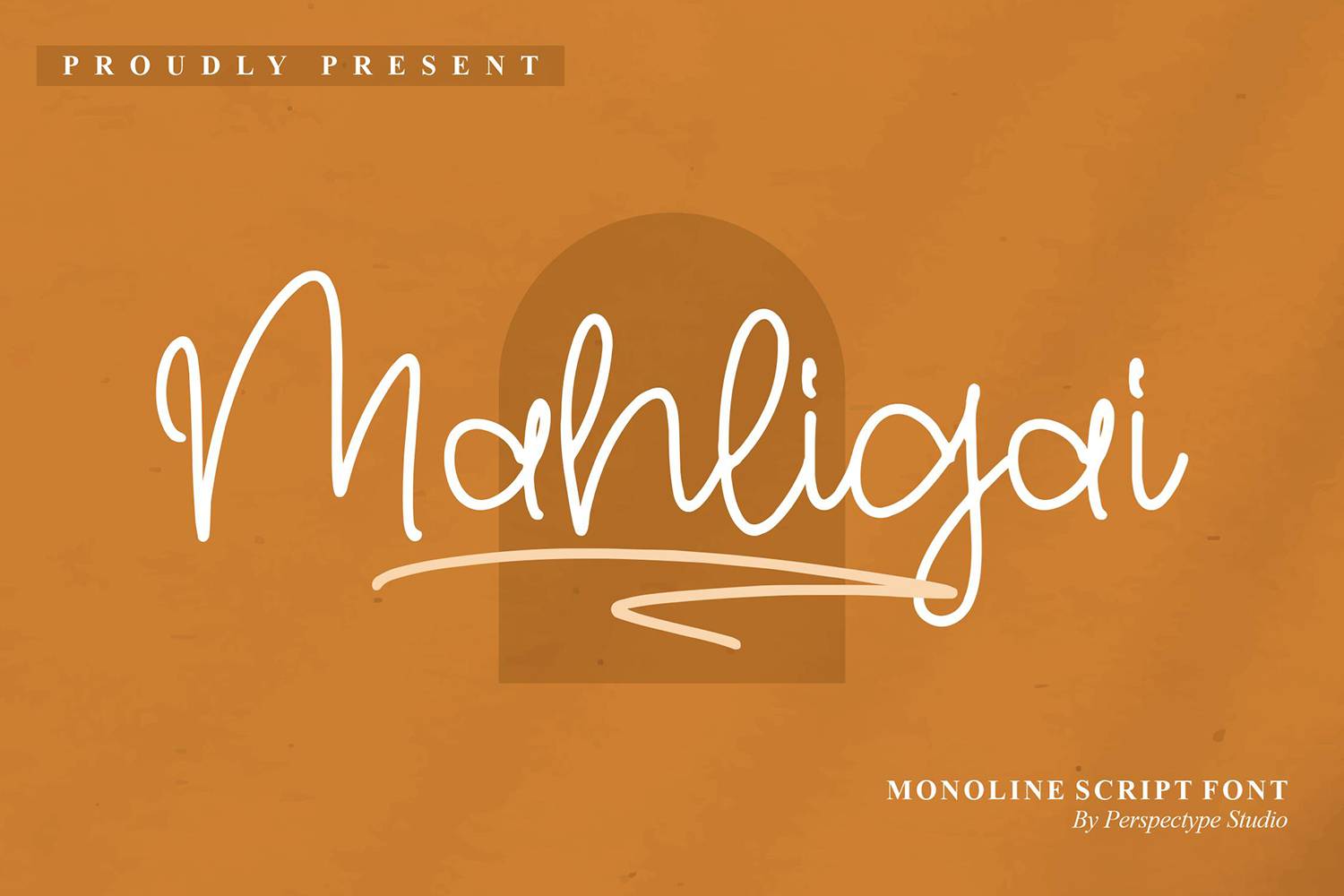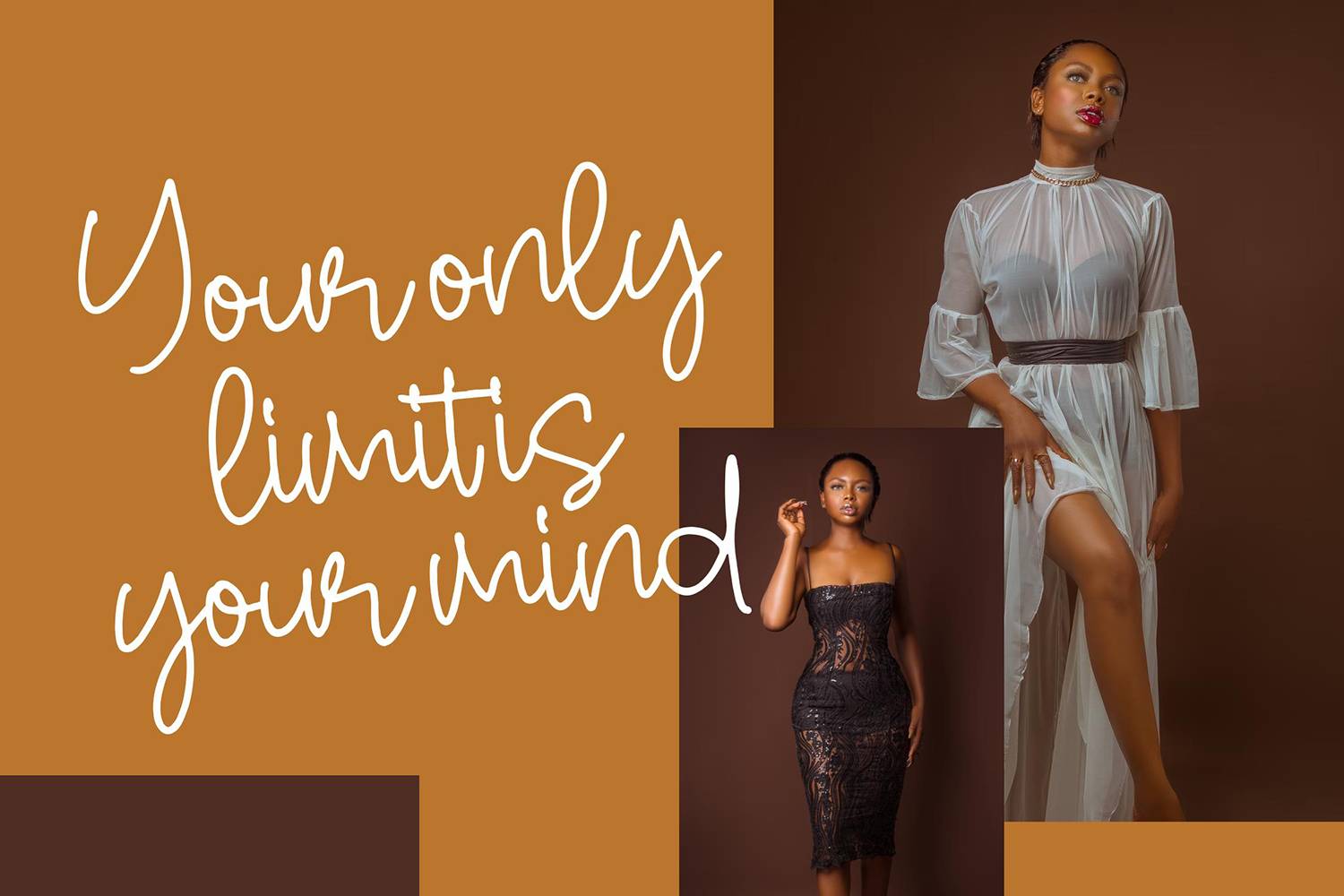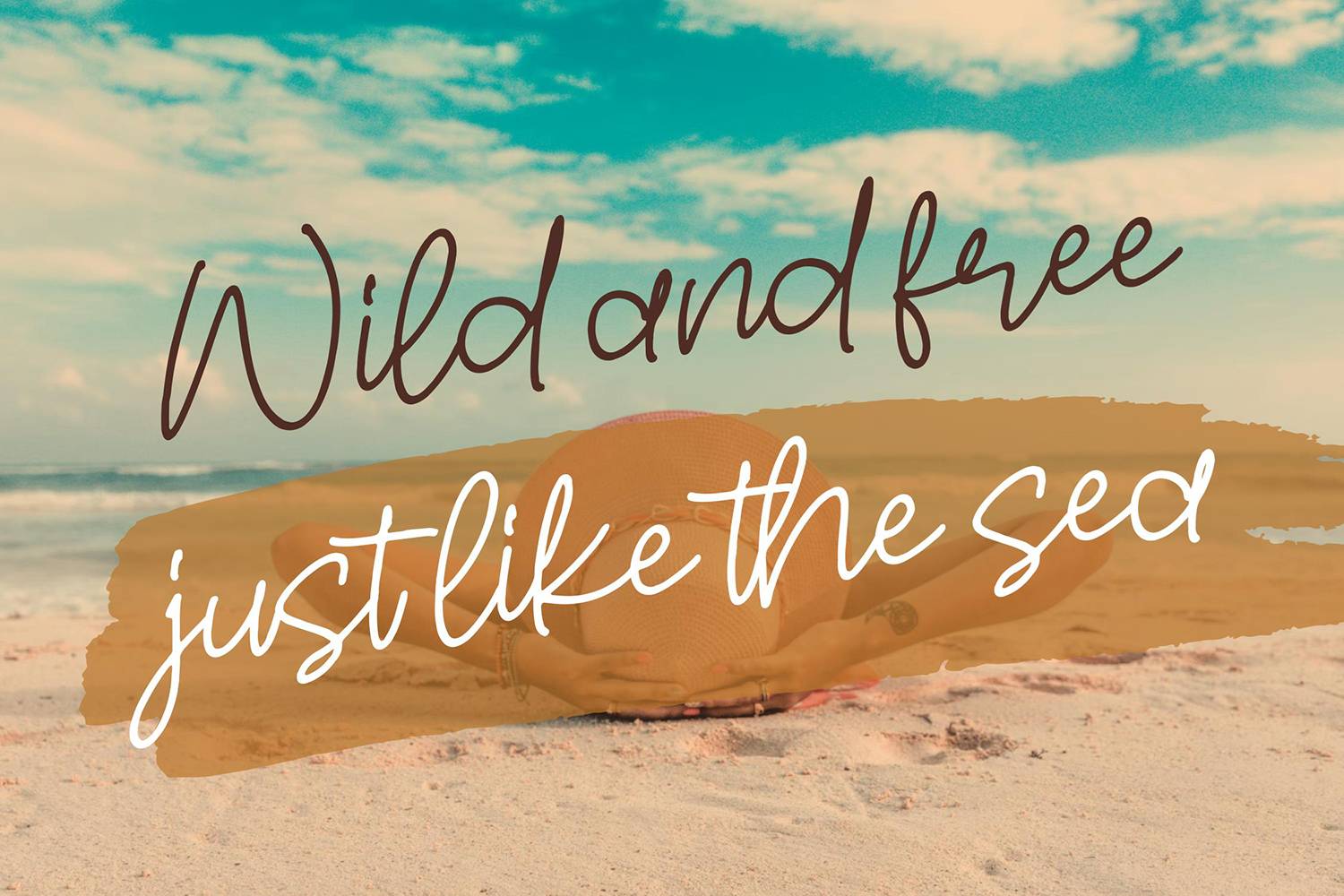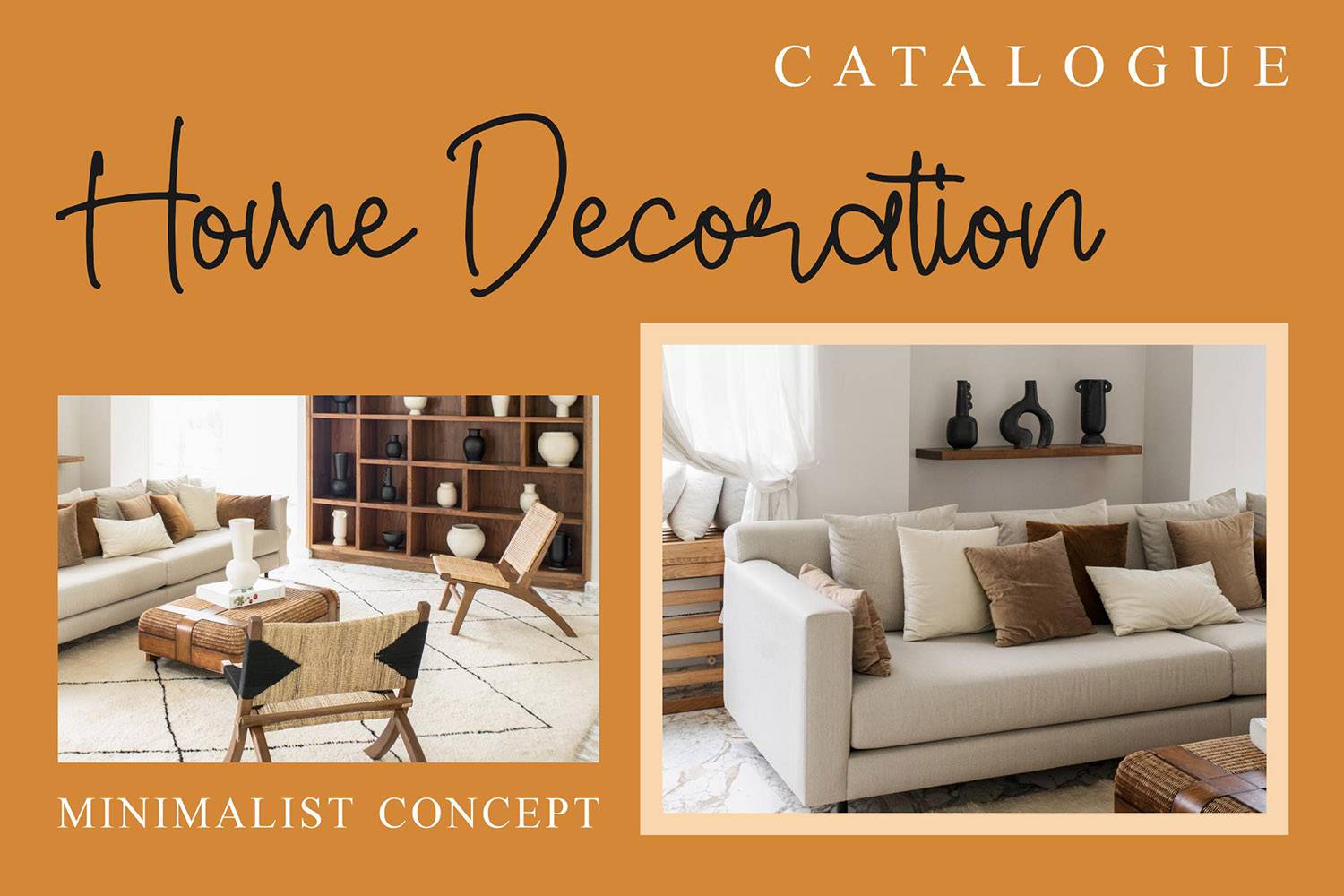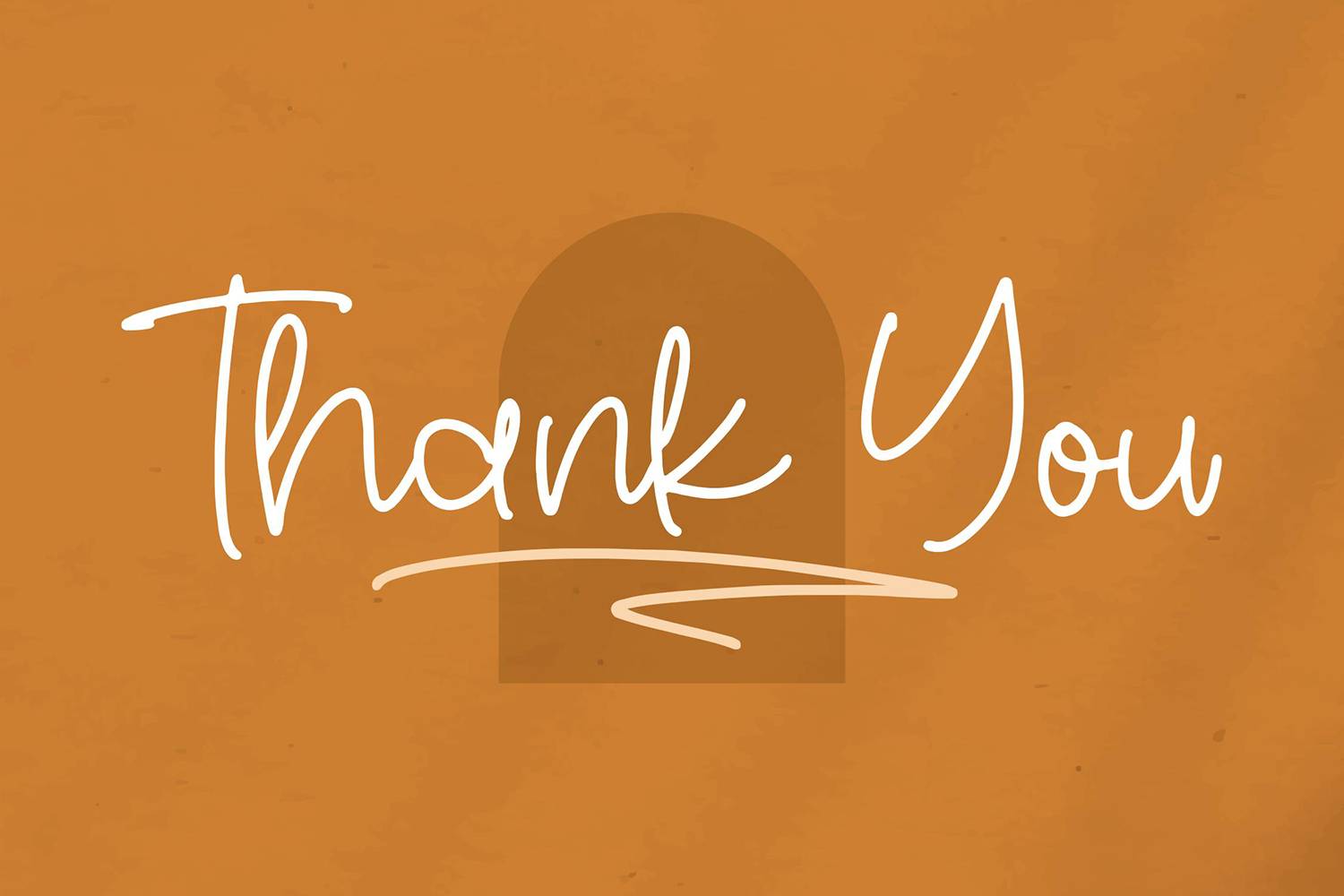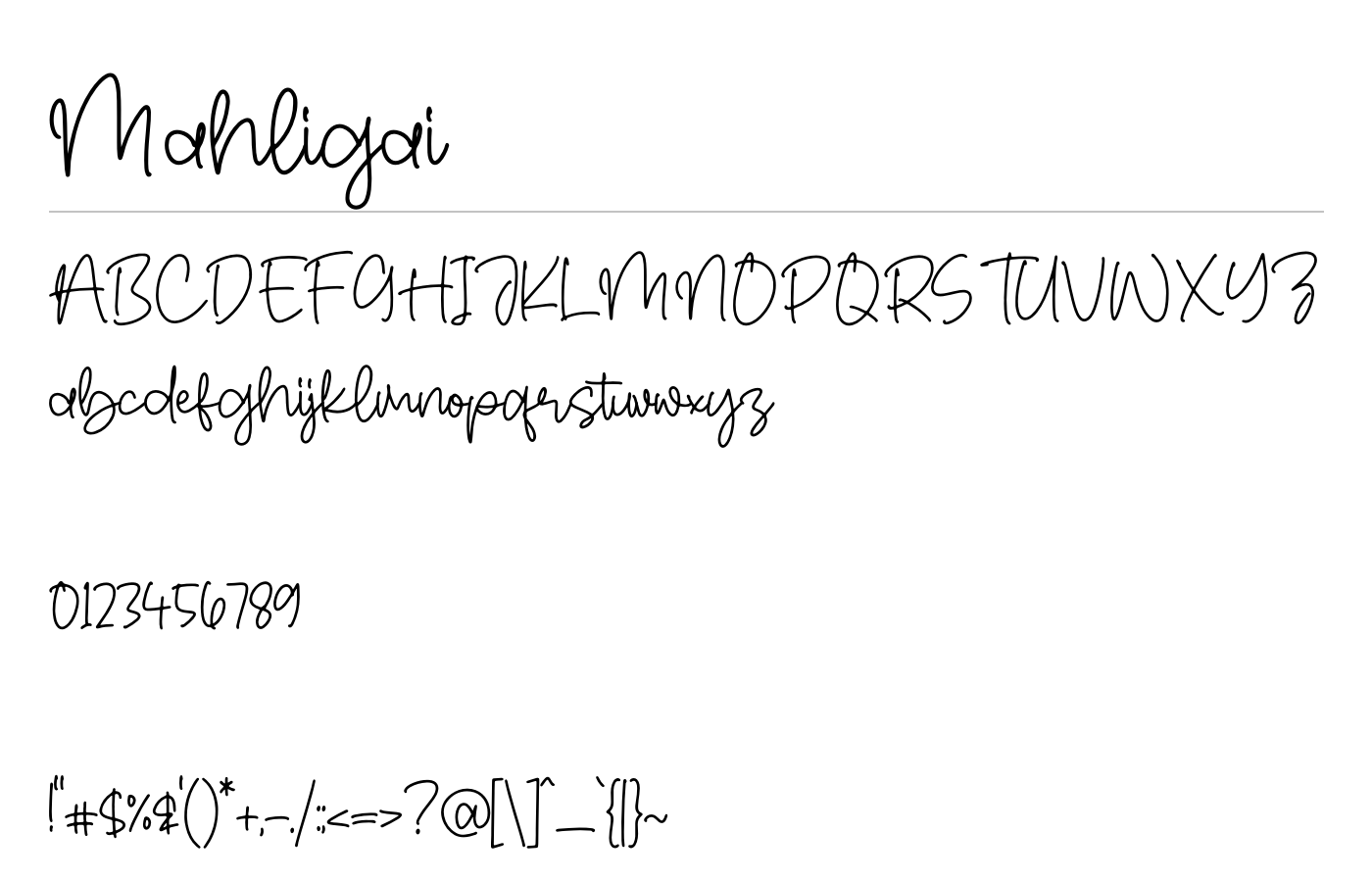
Mahligai is a playful and casual handwritten script font with a light, airy feel created by its thin, flowing lines and slender letterforms. Its irregular shapes and smooth, connected strokes give it a friendly and personal touch, making it perfect for creative projects, informal branding, or invitations that seek a warm, approachable vibe. This font works well when you want to convey creativity and charm without sacrificing legibility.
Mahligai Font